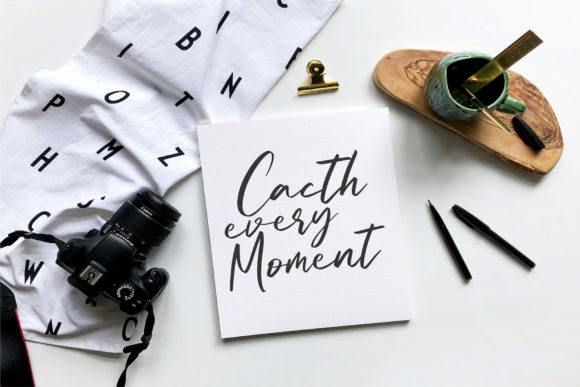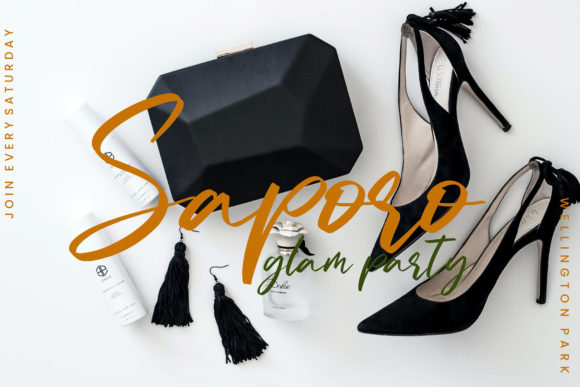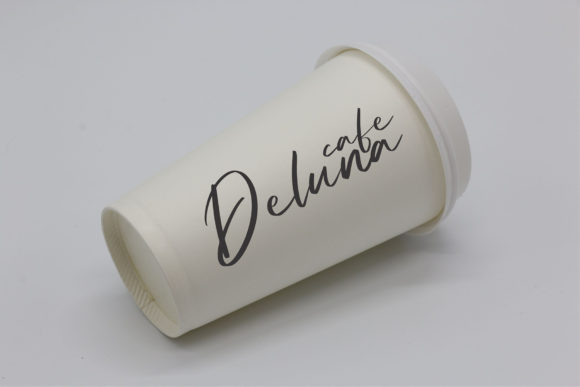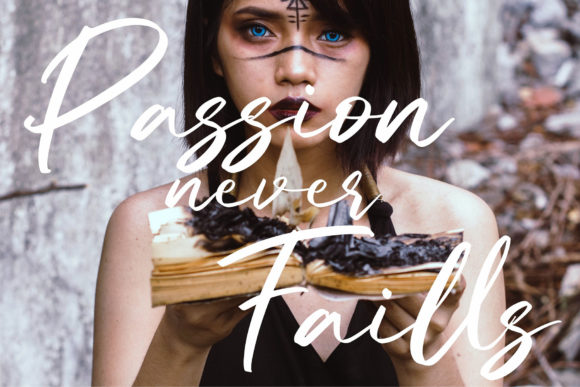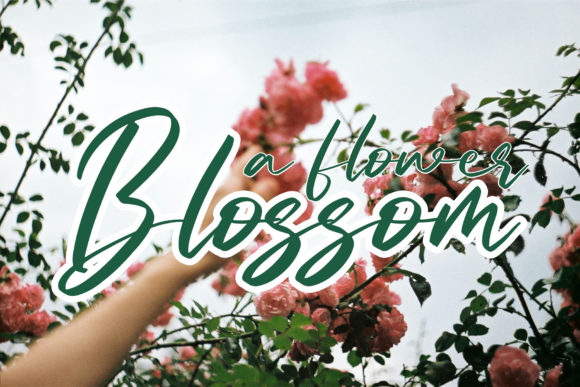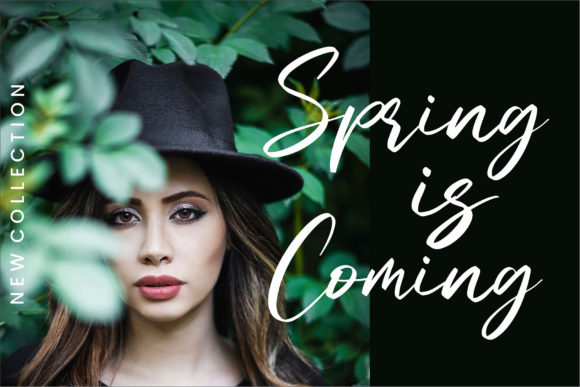
Have you ever been working on a design project, pouring your heart and soul into it, and suddenly, the perfect font pops into your head? That’s exactly what happened to many designers when they discovered the Caspiand Font. This modern handwritten font is the ultimate game-changer for creatives looking to add a personal touch to their work.
The Caspiand Font is designed to be versatile and adaptable, making it perfect for a wide range of projects, from wedding invitations to social media posts. Its unique style can elevate any design and make it stand out from the crowd. For designers, this font is a valuable addition to their toolkit, offering endless possibilities for creative expression.
Caspiand Font Key Features
- Font Family: Caspiand is a unique, handwritten font designed to evoke a sense of elegance and sophistication.
- Size: The font family consists of 6 styles, each with its own unique characteristics, including Regular, Italic, Bold, Bold Italic, Condensed, and Condensed Italic.
- Unique Characteristics: Caspiand features a distinctive, handwritten aesthetic with subtle imperfections and flourishes, making it ideal for creating eye-catching headlines and titles.
- Language Support: Supports a wide range of languages, including Latin, Cyrillic, and Greek, making it a versatile choice for global design projects.
Caspiand Font Review
I recently had the chance to work with the Caspiand Font, and I must say it’s a unique and interesting addition to any design project. ✨ One of the things that stands out is its elegant and modern feel, which makes it perfect for high-end branding and luxury projects. The font’s subtle curves and refined lines give it a sophisticated touch that’s hard to find in other fonts.
Another aspect that I appreciate is the Caspiand Font’s versatility. ✨ It comes in a range of weights and styles, from light to bold, which allows designers to experiment with different typography combinations and find the perfect fit for their project. The font also includes a range of ligatures and swashes, which can add a touch of personality to text.
- ⚠️ The Caspiand Font may not be the best choice for projects that require a more rustic or informal feel, as it’s primarily designed for high-end and luxury applications.
- ⚠️ Some users may find the font’s curves and lines to be too subtle, which can make it difficult to read at smaller font sizes.
Overall, I’m impressed with the Caspiand Font’s unique design and versatility. While it may have some limitations, it’s a great addition to any designer’s toolkit, especially for projects that require a touch of elegance and sophistication.
Getting the Most Out of Caspiand Font
To get the most out of Caspiand Font, try the following tips:
- Use Caspiand Font for titles and headings to create a bold and eye-catching look.
- Pair Caspiand Font with a clean and simple font for body text to create a balanced design.
- Experiment with different font sizes and colors to create a unique and visually appealing design.
Caspiand Font is commonly used for:
- Editorial and publishing materials
- Graphic design and digital art